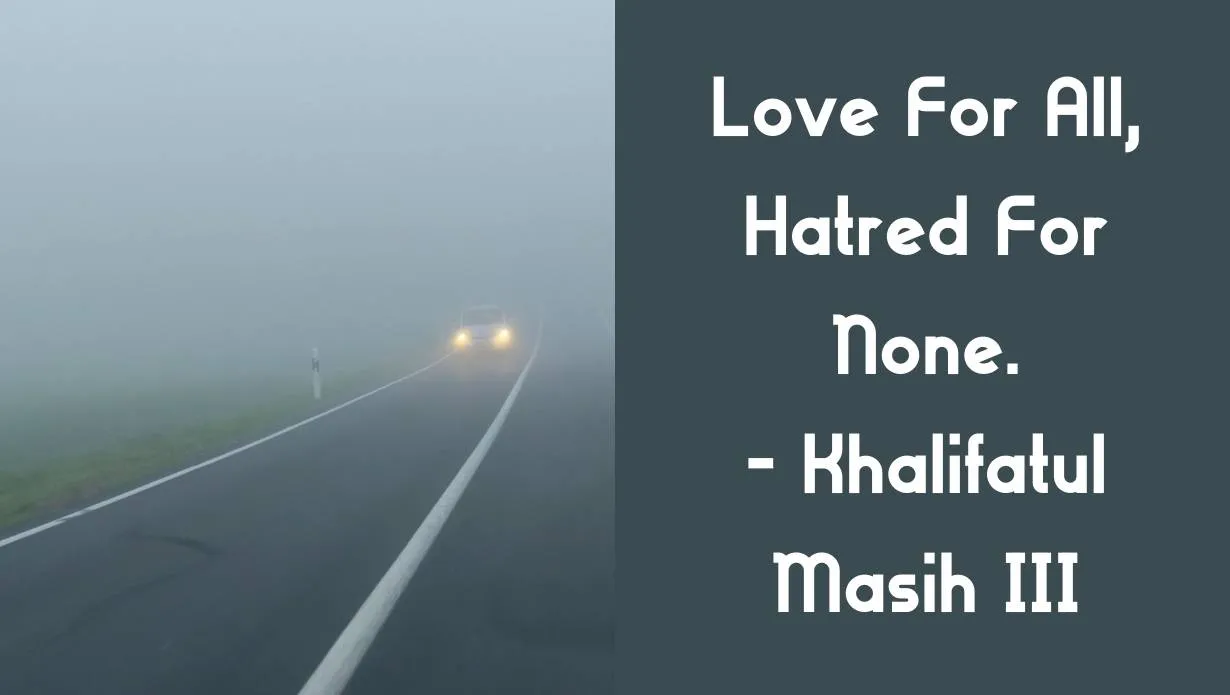
Today In this post, we will introduce you to the modern, geometric, and contemporary font which is known as Gilbert Font. This font style design falls under the category of Sans Serif Typeface which mainly focuses on legibility and clarity.
You can utilize this font style for designing creative projects. Animography is the designer of this fantastic font style design. The publishing date of this font style is 31 March 2017.
| Name | Gilbert Font |
| Designer | Animography |
Gilbert Font Family